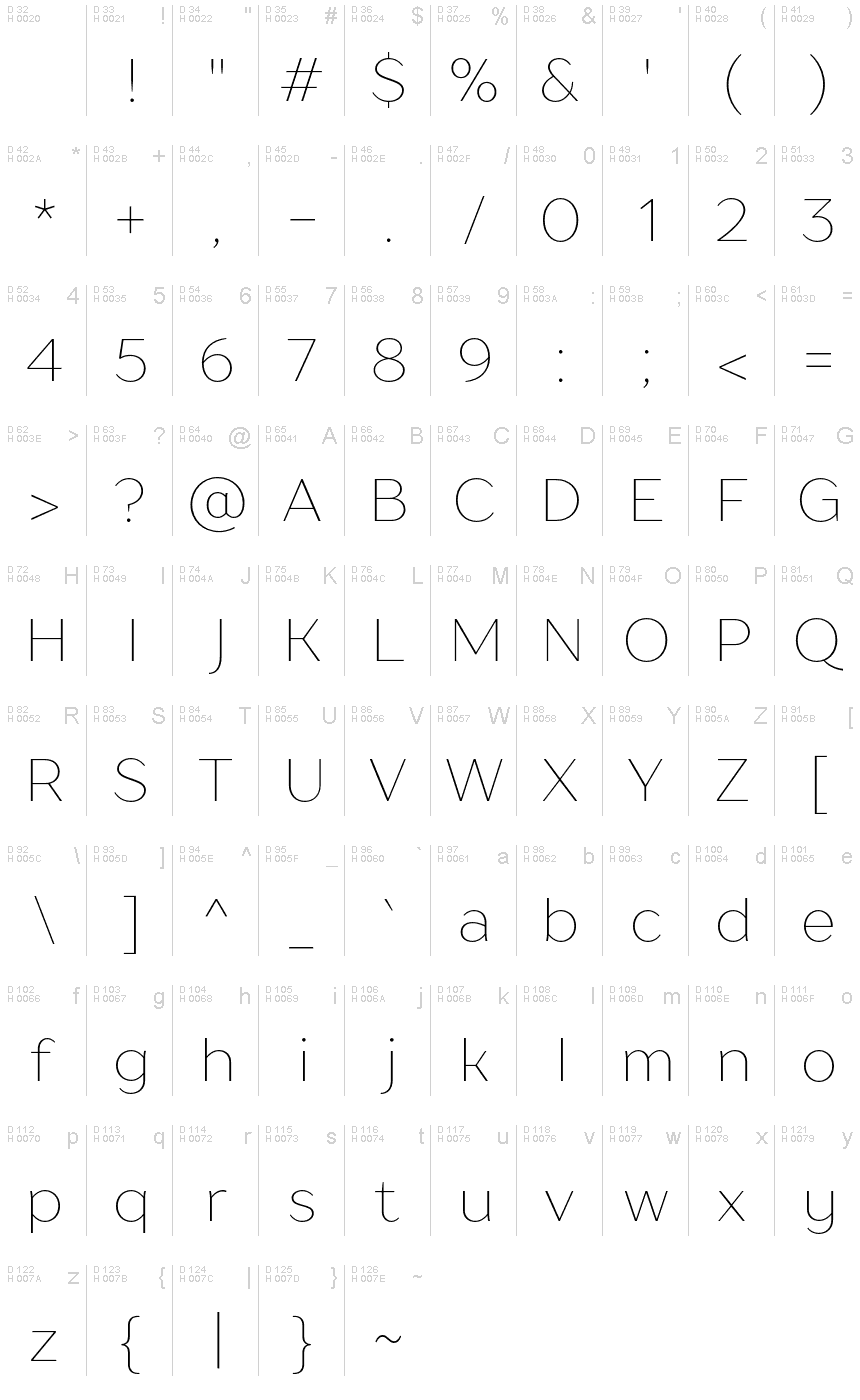
TT Drugs Trial Thin
TT Drugs Thin is a stunning sans-serif font designed by TypeType Foundry that exudes elegance and sophistication. With its extra-light weight, this font is perfect for delicate designs that require a refined touch. The clean lines and minimalistic style of TT Drugs Thin make it ideal for editorial projects such as magazines, newspapers, and books. Additionally, due to its easy readability, it can also be used in web design or branding materials where clarity is key. Whether you're designing a logo for a luxury brand or creating an editorial layout for a high-end publication, TT Drugs Thin will add an air of refinement to any project.